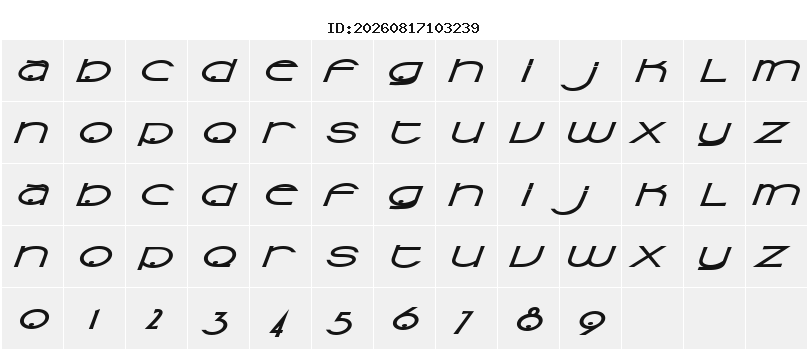
Sonic Superpowers Preview
• Font Name: Sonic Superpowers
• Full Font Name: Sonic Superpowers
About Sonic Superpowers.ttf
Sonic Superpowers.ttf is a modern, elegant sans-serif font designed for ultimate readability and visual harmony. Perfect for branding, headlines, web design, and print materials.